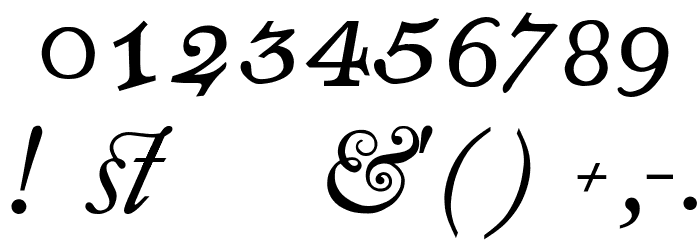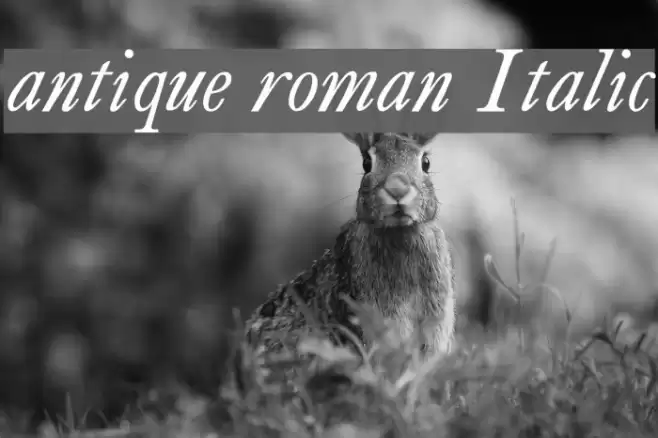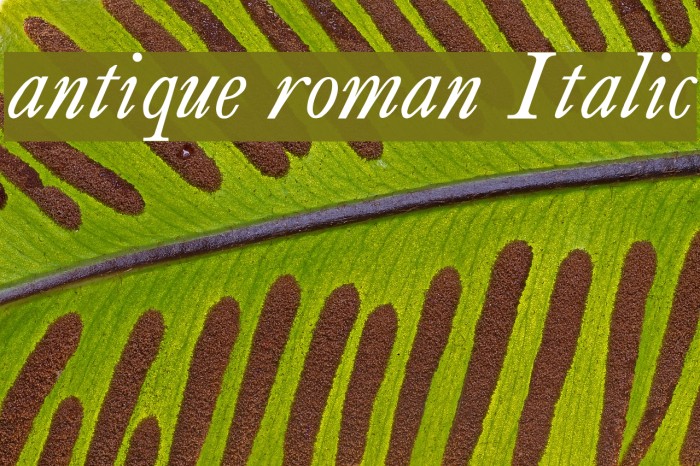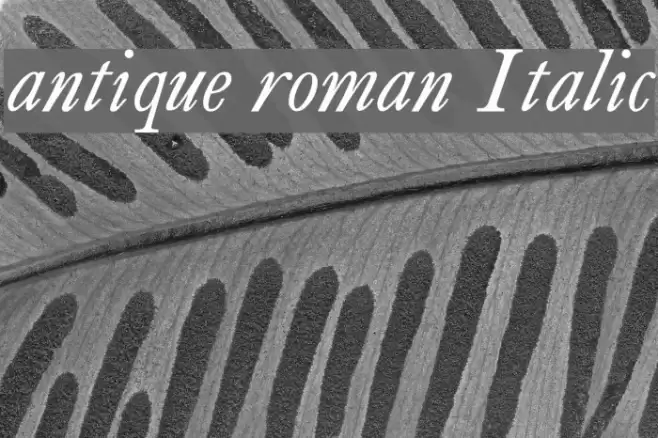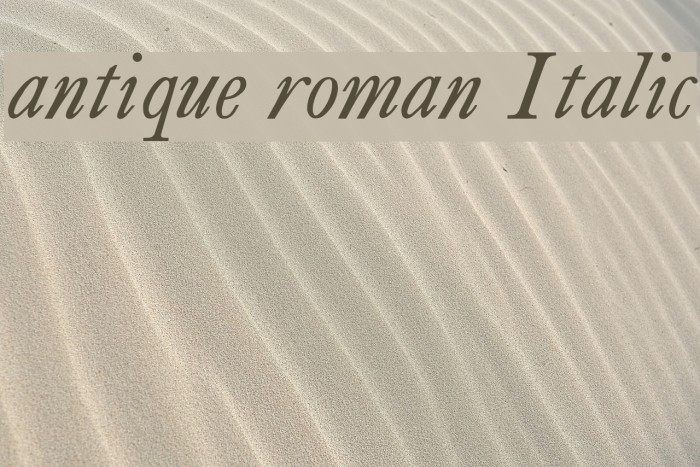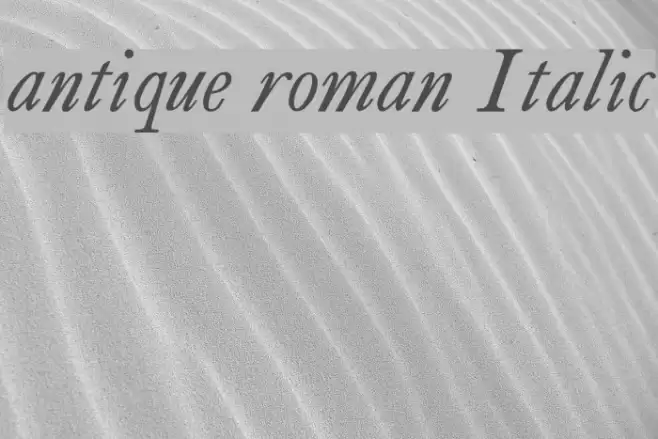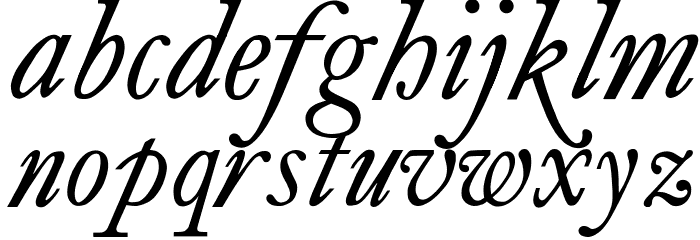
antique roman Italic Font
This font exudes a classic elegance with its italicized form, reminiscent of traditional Roman typefaces. The characters are gracefully slanted, adding a sense of motion and sophistication. The uppercase letters are bold and commanding, while the lowercase letters maintain a refined and flowing appearance. The numerals are distinct and well-proportioned, complementing the overall aesthetic. Special characters are thoughtfully designed, with a unique flair that enhances the font's decorative appeal. This typeface is ideal for projects that require a touch of timeless elegance and classical beauty.
An elegant, italicized font with classic Roman influences from Uncategorized fonts.
• Proposed Projects: Ideal for wedding invitations, formal event programs, luxury branding, and editorial design.
• Overall Style: Classic
• Use Case: Headlines, Logos, Invitations